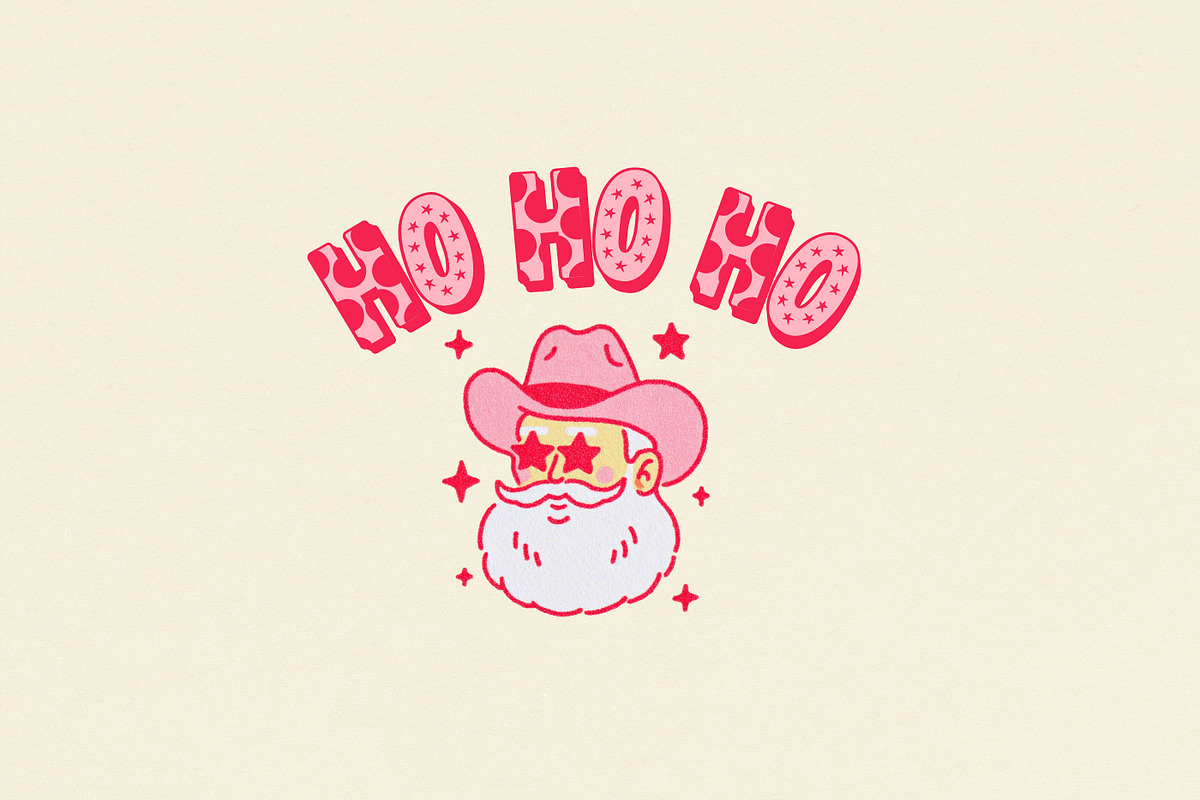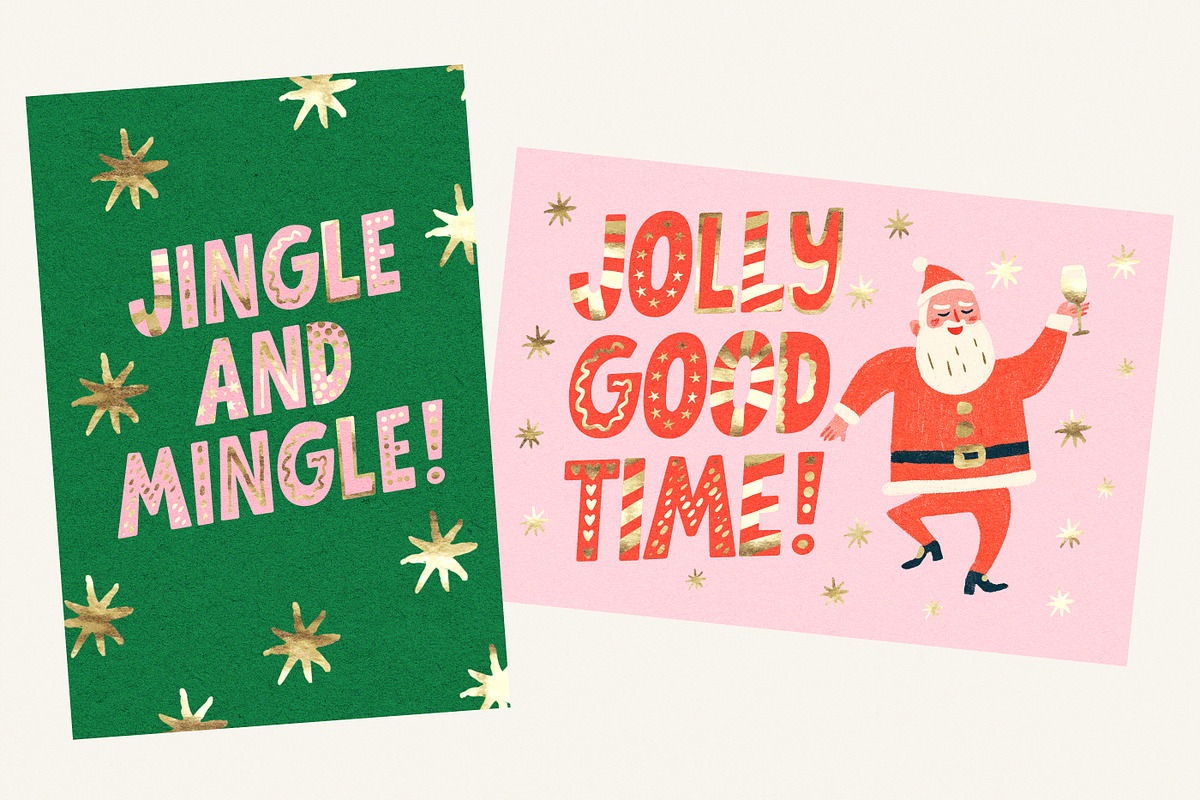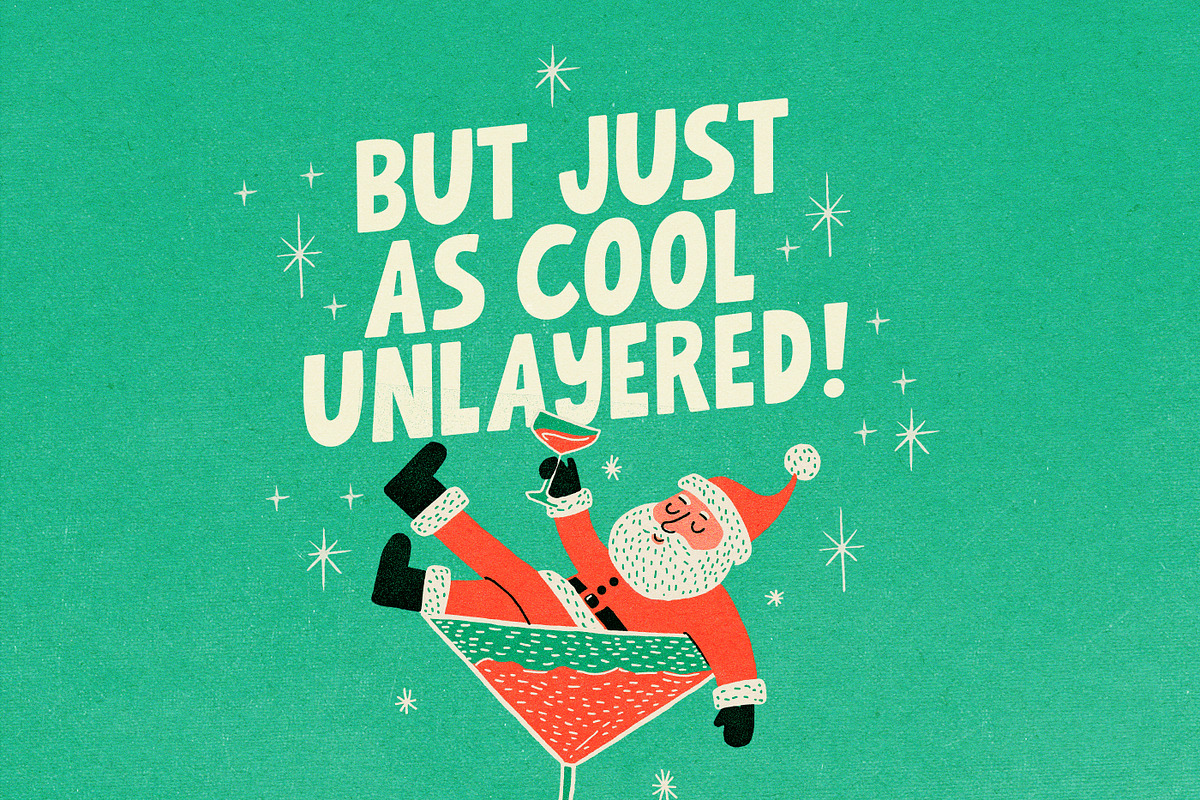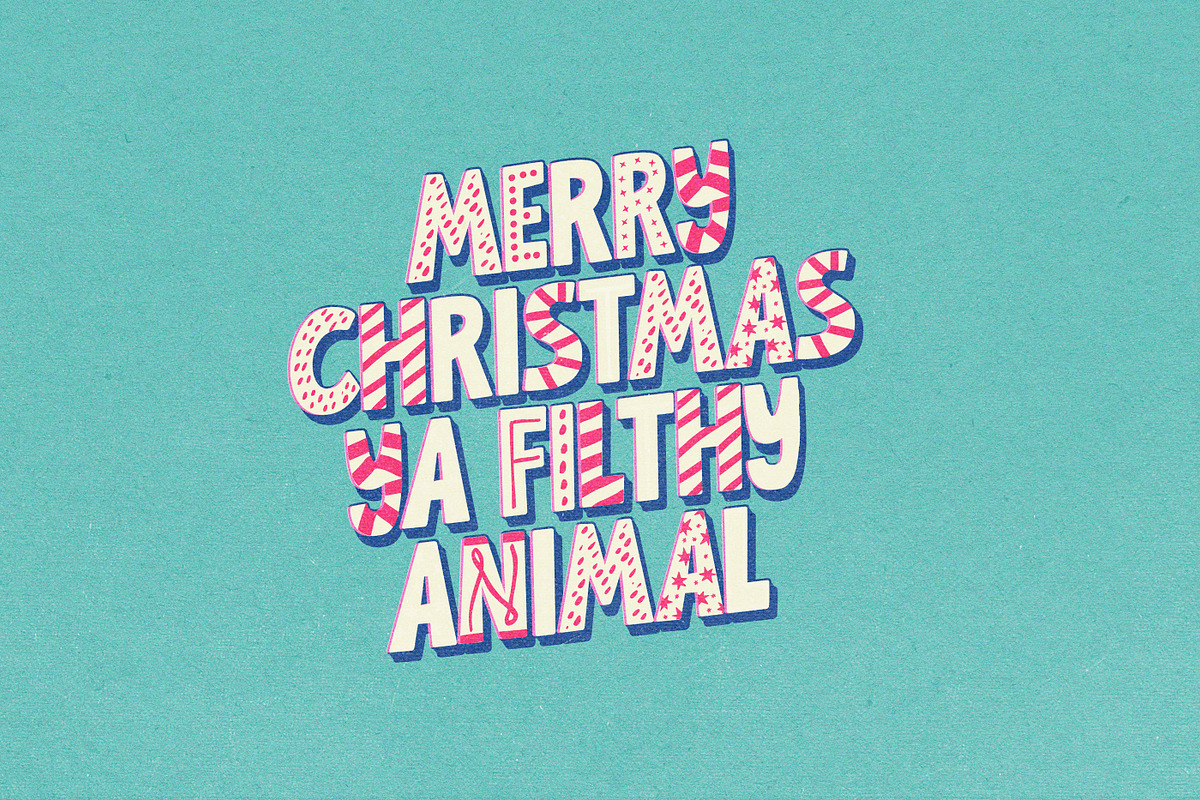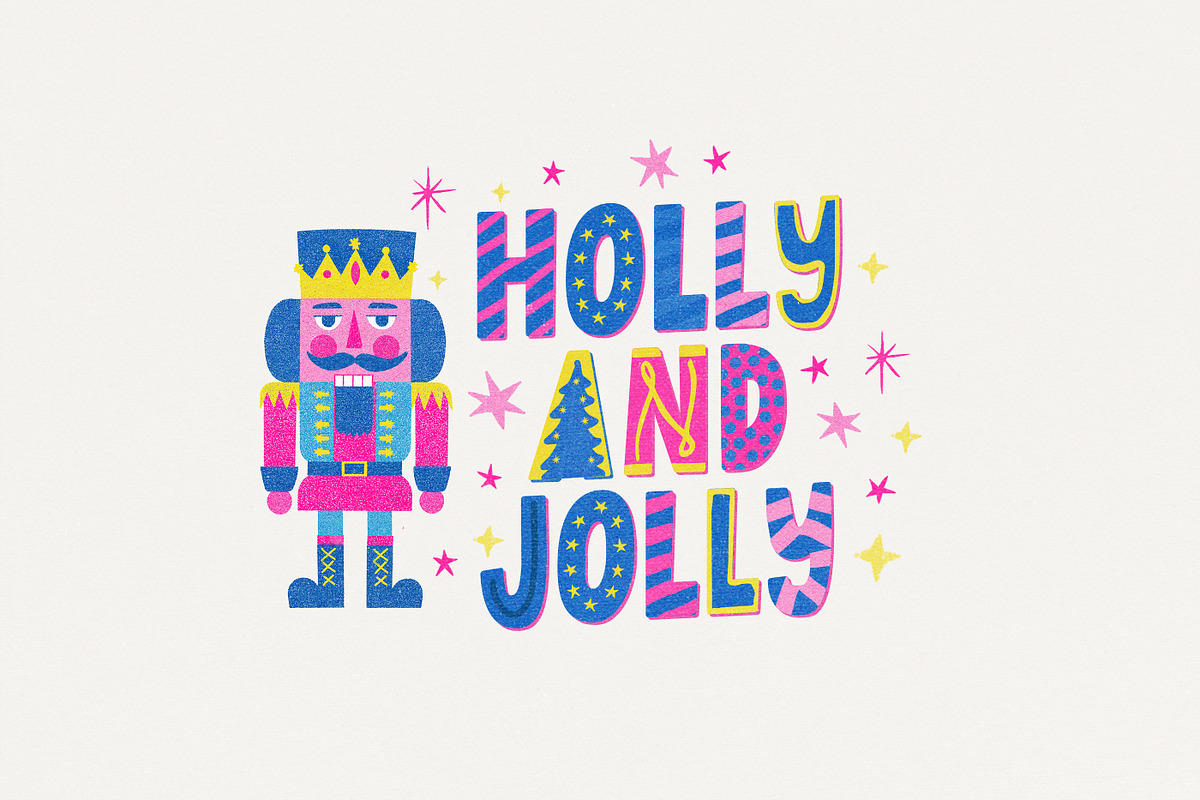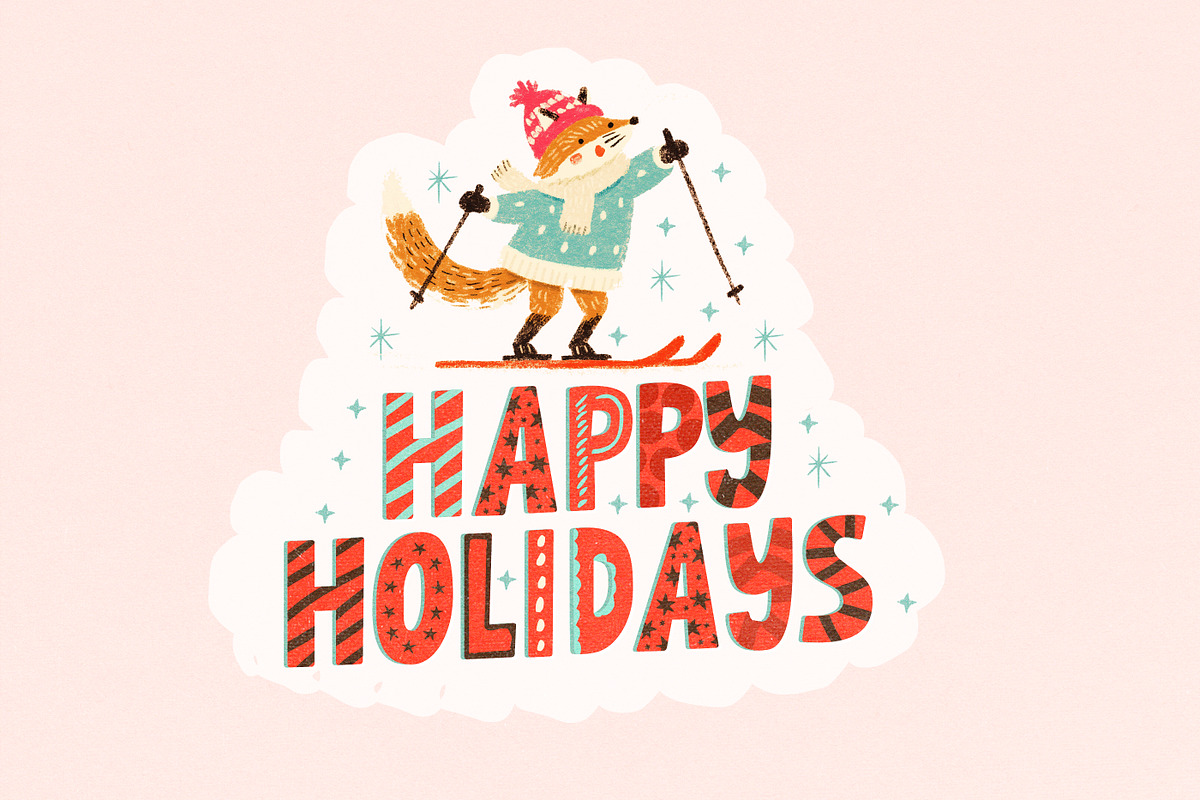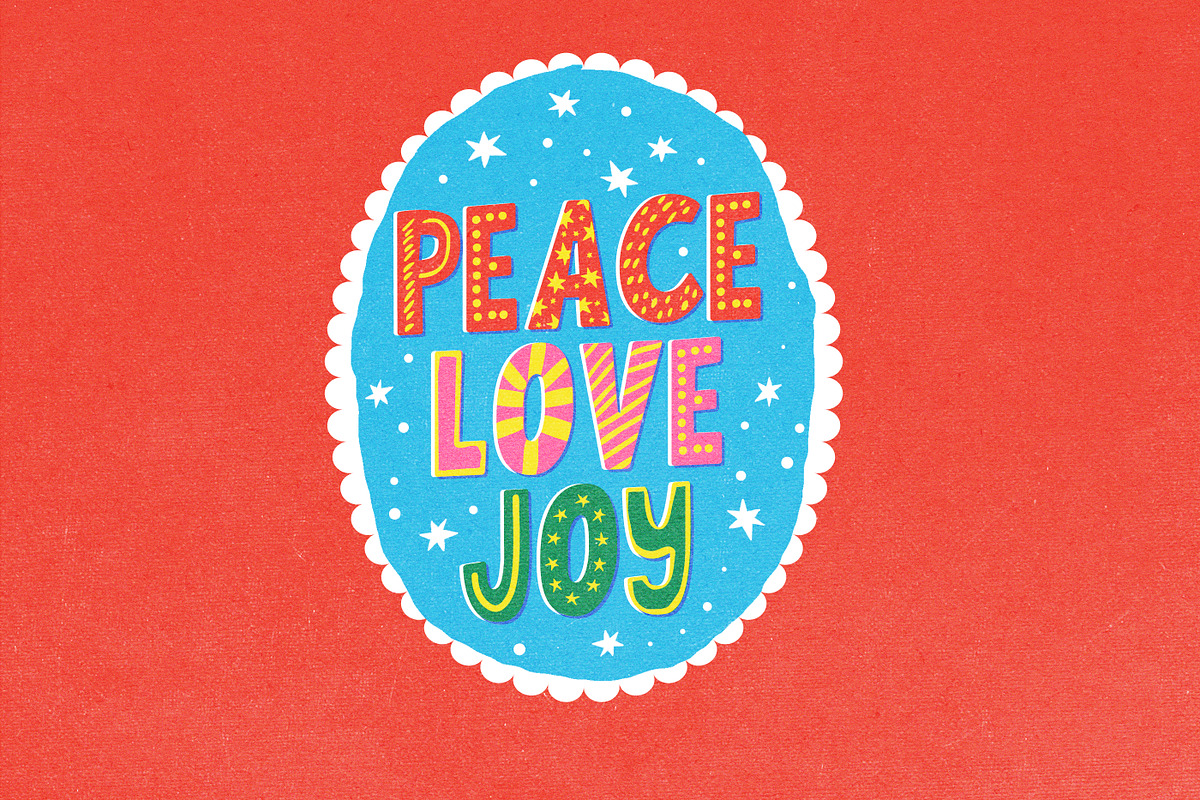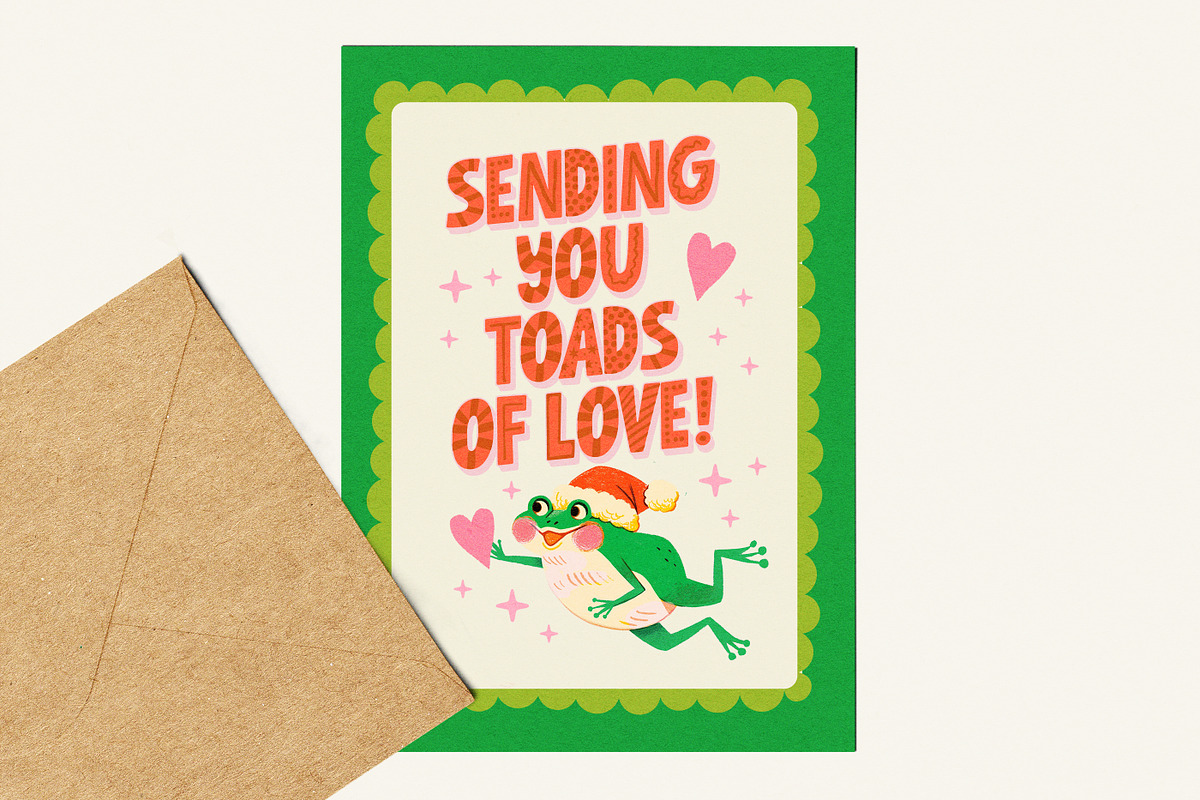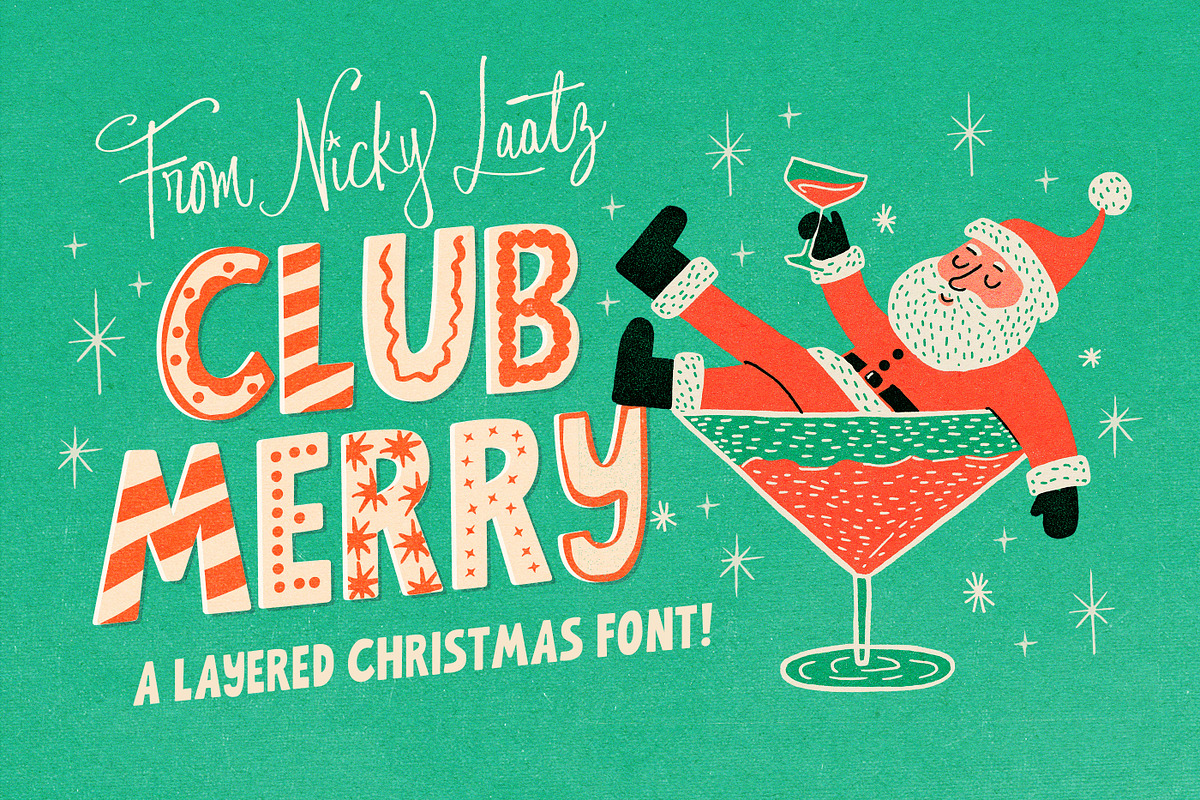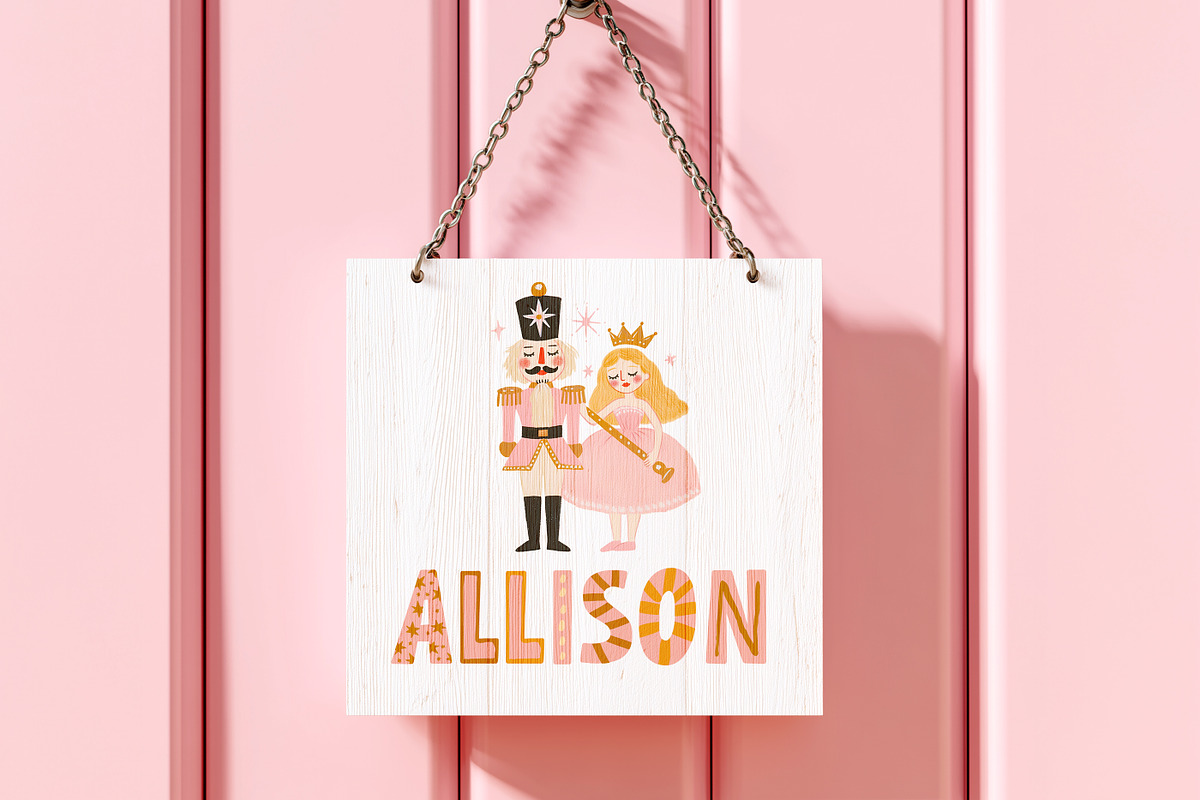
Club Merry Layered Font
Something a little fun for the festive season!! A layered Sans serif font with all the bells and whistles, and christmas lights :)
A Playful sans forms the base of this typeface - great for layering, but also fabulous on its own!
The other fonts ( or layers) consist of :
- A single outline
- a slight shadow to the left ( Handy for a misprinted look)
- a slight shadow to the right ( Handy for a misprinted look)
- A ' Deco' version - with decorative bits and bobs
- A 3D Shadow/Extruded Version
Handy Tip : You don't have to display all the decorative bits in one go - if there are letters you'd like to keep ' blank' in your typographic design - just change the colour of that 'Deco' font layer to the same colour as the underlying solid font layer.